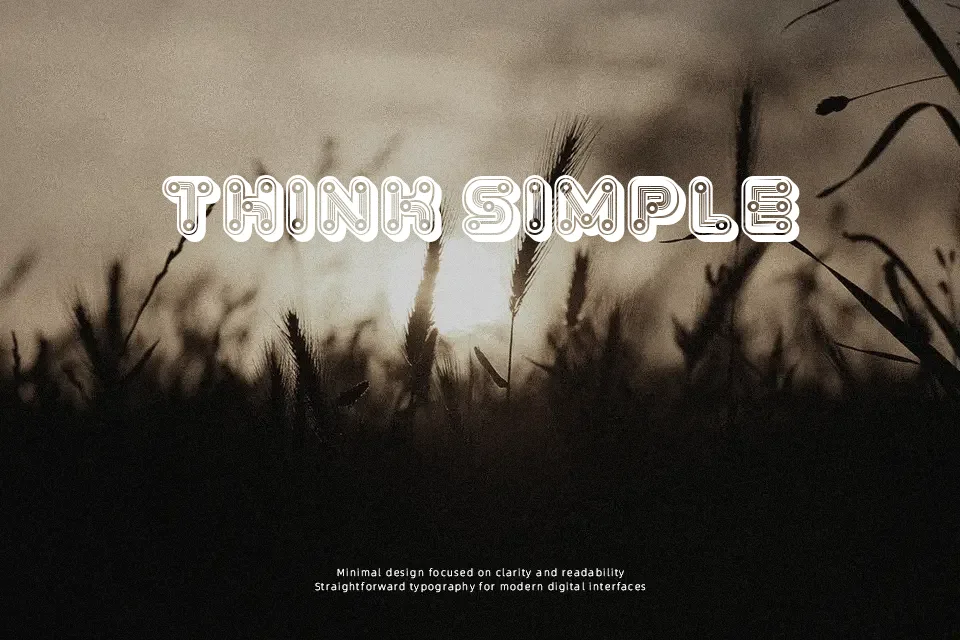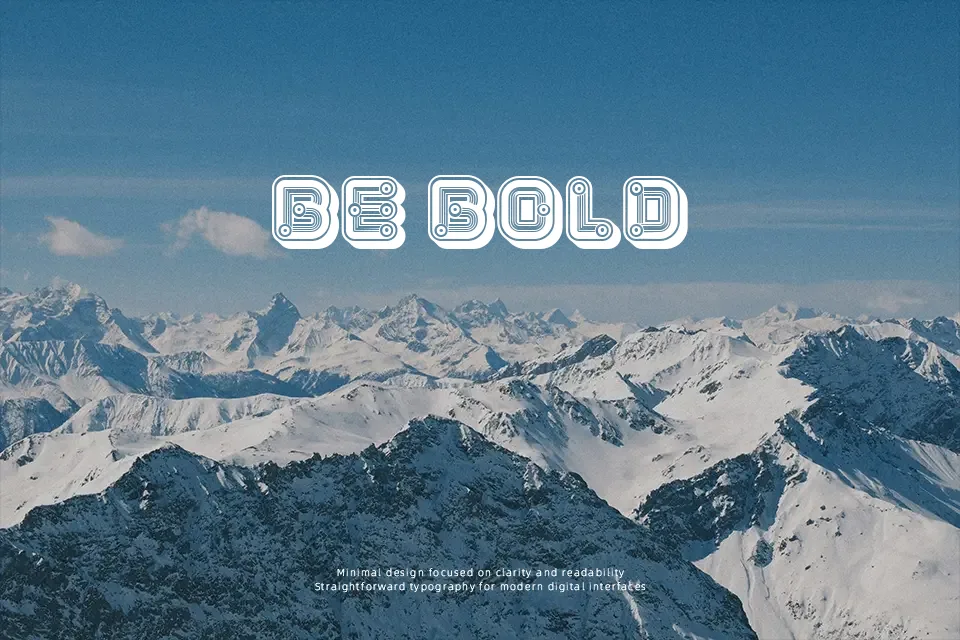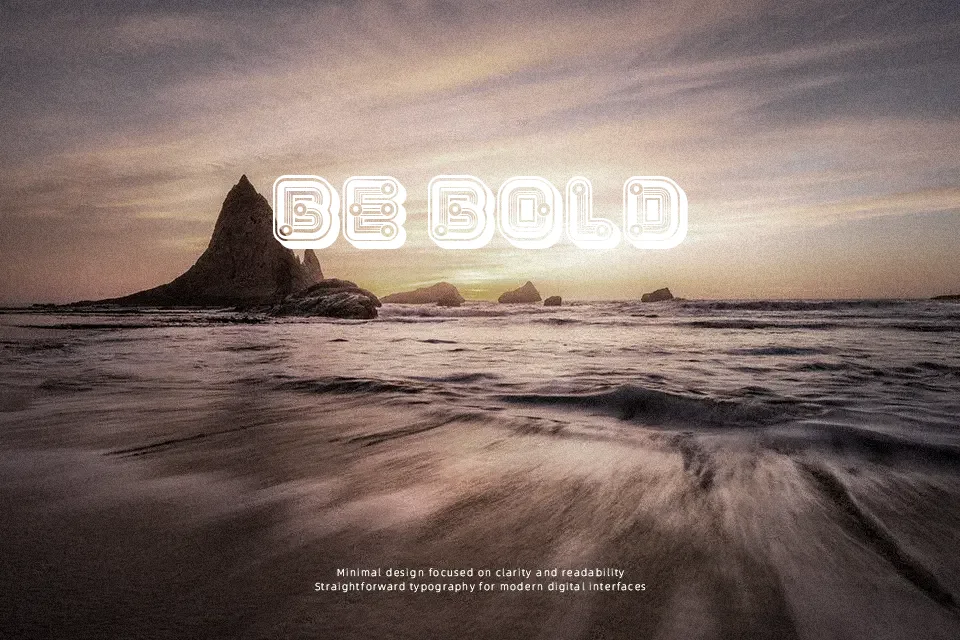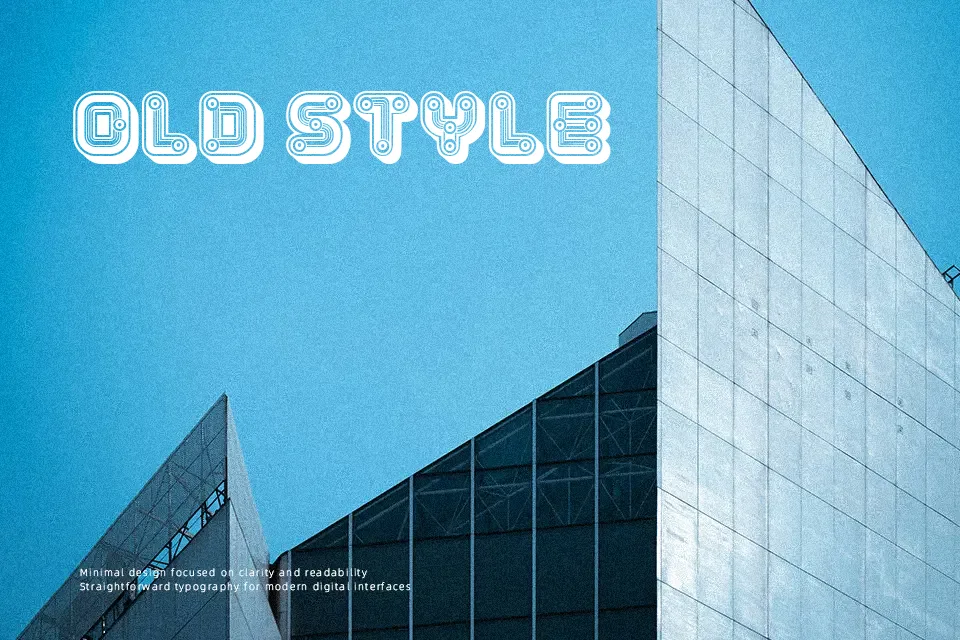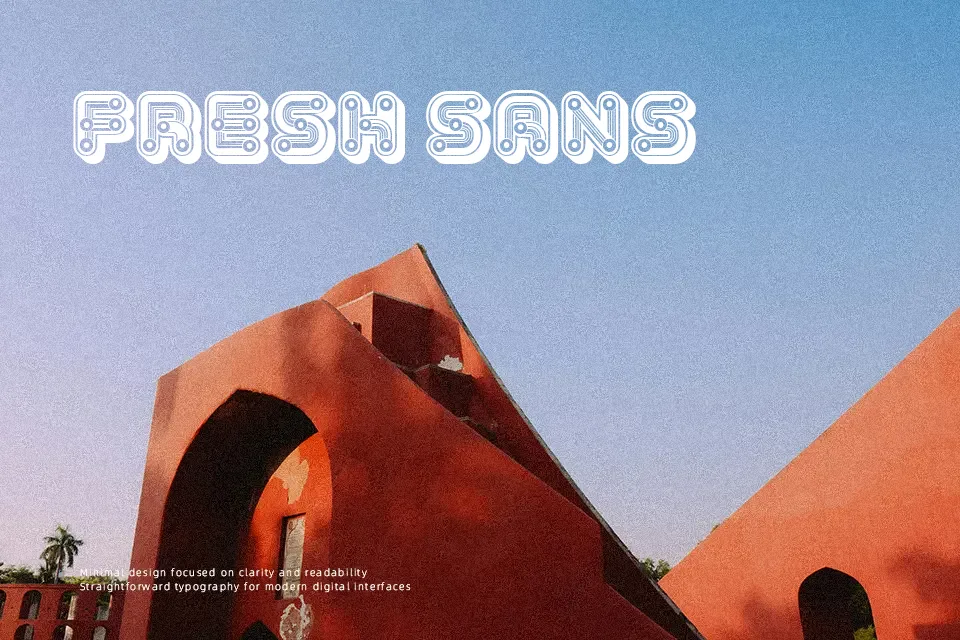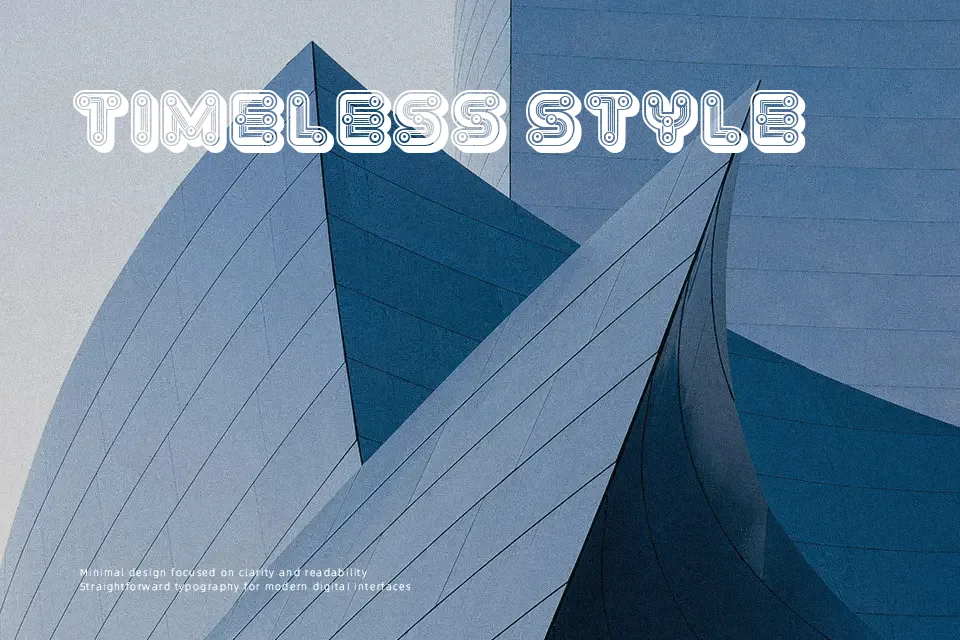
Advisor Font
There’s a deliberate theatricality to Advisor — its letterforms carry decorative weight without completely sacrificing structure, sitting somewhere between a display serif and a fancy ornamental typeface. The filled variant adds a second visual layer, giving designers flexibility to contrast solid and outlined forms in the same composition. Spacing is tight by decorative-font standards, which helps it feel intentional rather than scattered at headline sizes. It holds up well on poster headers, event titles, and boutique logo lockups where a touch of drama is welcome. That said, Advisor struggles below 24pt — the ornamental detail muddies quickly at small sizes — and it’s a weak fit for body copy or any context demanding neutral professionalism. For personal projects, the free files are a practical starting point; commercial use requires a separate license via Creative Fabrica.
Best For:- Event poster headlines and title cards
– Boutique brand logo treatments
– Editorial section headers with a decorative tone
– Social media graphics needing typographic flair
Not Ideal For:- Body text or long-form reading
– Corporate or legal document formatting
– Small-size UI labels or captions
– Minimalist or clean-aesthetic branding
Perfect for branding, editorial, and headline, with a artistic and decorative style.